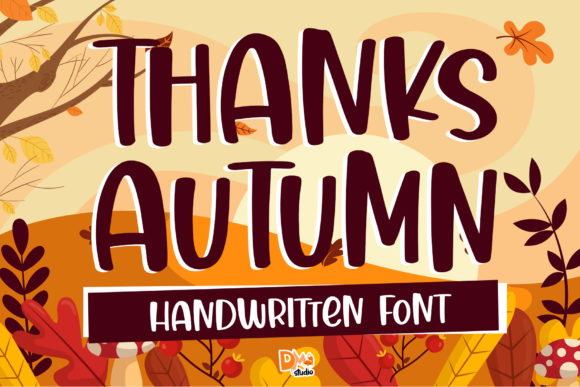
Introducing Thanks Autumn Font, the perfect addition to your font collection! Crafted with love and creativity by dmletter31, this script font is here to elevate your designs and add a touch of magic.
Thanks Autumn Font is not just any ordinary font - it's an embodiment of fun, quirkiness, and authenticity. With its enchanting handwritten style, it has the power to transform any creative concept into a true standout.
Imagine the possibilities! Whether you're designing a logo, crafting a social media post, or creating eye-catching graphics, Thanks Autumn Font will effortlessly take your projects to the next level. Its unique playfulness and charm will captivate your audience and leave them wanting more.
Not only does Thanks Autumn Font bring an element of uniqueness to your designs, but it also adds a sense of joy and brightness. Need to add a sprinkle of excitement to your crafting project? Look no further! Thanks Autumn Font will infuse your creations with a burst of energy and creativity.
This font is a must-have for anyone who values creativity and wants to make a lasting impression. Its versatility allows you to experiment and explore various design styles, making it the perfect choice for graphic designers, artists, and craft enthusiasts.
Get ready to embark on a journey of creativity and inspiration with Thanks Autumn Font. It's time to make your designs come alive and stand out from the crowd. Elevate your projects, captivate your audience, and let your creativity shine with Thanks Autumn Font!